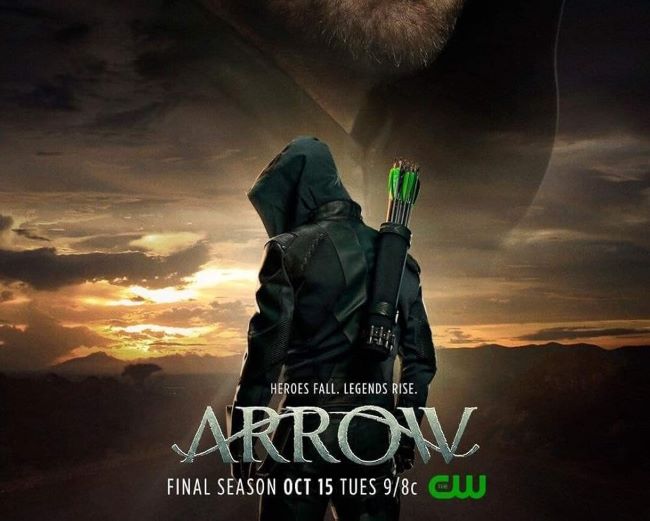
The Arrow Font
The Arrow Font perfectly captures the bold, action-packed energy of the CW’s superhero series. Although the show’s original lettering is custom, the closest alternative is by JoannaVu, a sleek typeface with sharp, angular lines that evoke the precision and intensity of a well-aimed arrow. This font is ideal for designs that need a modern, heroic, and dynamic touch. You can also explore more free fonts for similar styles.
The Arrow Font stands out with its razor-sharp edges and contemporary styling, reflecting Oliver Queen’s transformation from billionaire playboy to skilled vigilante. Its angular, weapon-inspired letterforms carry a sense of speed, precision, and tension—perfectly in line with the Arrowverse’s heroic tone. The font works beautifully for both promotional graphics and fan projects seeking that high-stakes superhero energy.
About Arrow
Arrow is an American superhero TV series created by Greg Berlanti, Marc Guggenheim, and Andrew Kreisberg, which premiered in 2012. Starring Stephen Amell as Oliver Queen, the show follows the billionaire playboy turned vigilante as he protects Star City with his archery skills and tactical intelligence. Known for its intense action, complex character development, and interconnections across the Arrowverse, the series became a cornerstone of modern superhero television and ran for eight seasons, concluding in 2020.